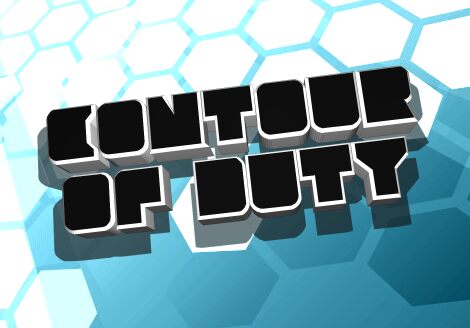
Contour of Duty Semi-Italic
Contour of Duty Semi-Italic, a captivating font created by Iconian Fonts, exudes a bold and groovy aesthetic. This display-style typeface masterfully combines sharp contours and a semi-italic slant, evoking a sense of motion and dynamism. The bold weight adds a touch of confidence, while the subtle curves lend a touch of sophistication to the overall design.
Contour of Duty Semi-Italic's striking visual presence makes it an ideal choice for eye-catching headlines, impactful branding, and dynamic design projects. Its unique character and versatility allow it to seamlessly integrate into a wide range of design contexts, from modern web interfaces to retro-inspired print materials, making it a valuable asset for creatives seeking to make a bold and memorable impression.